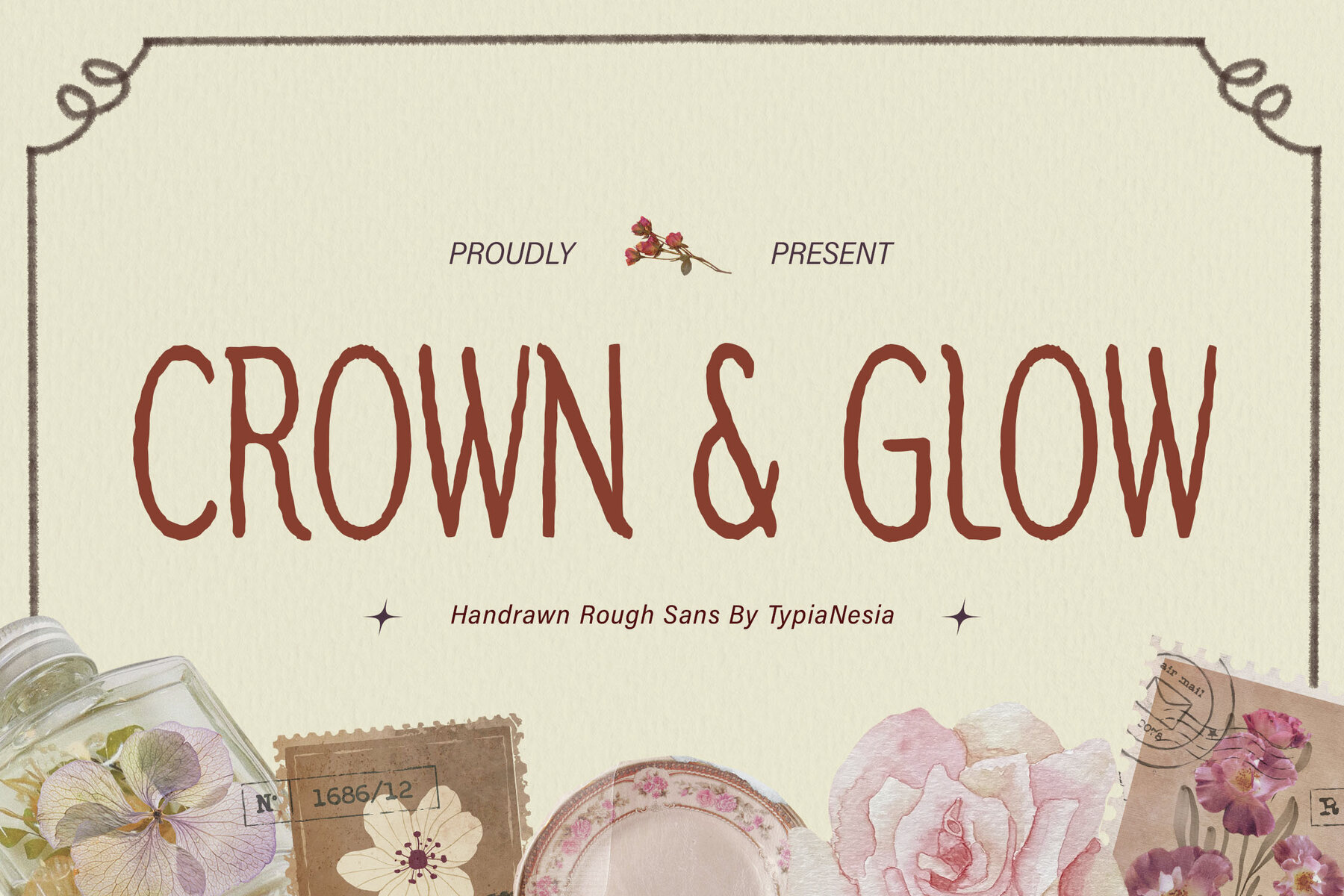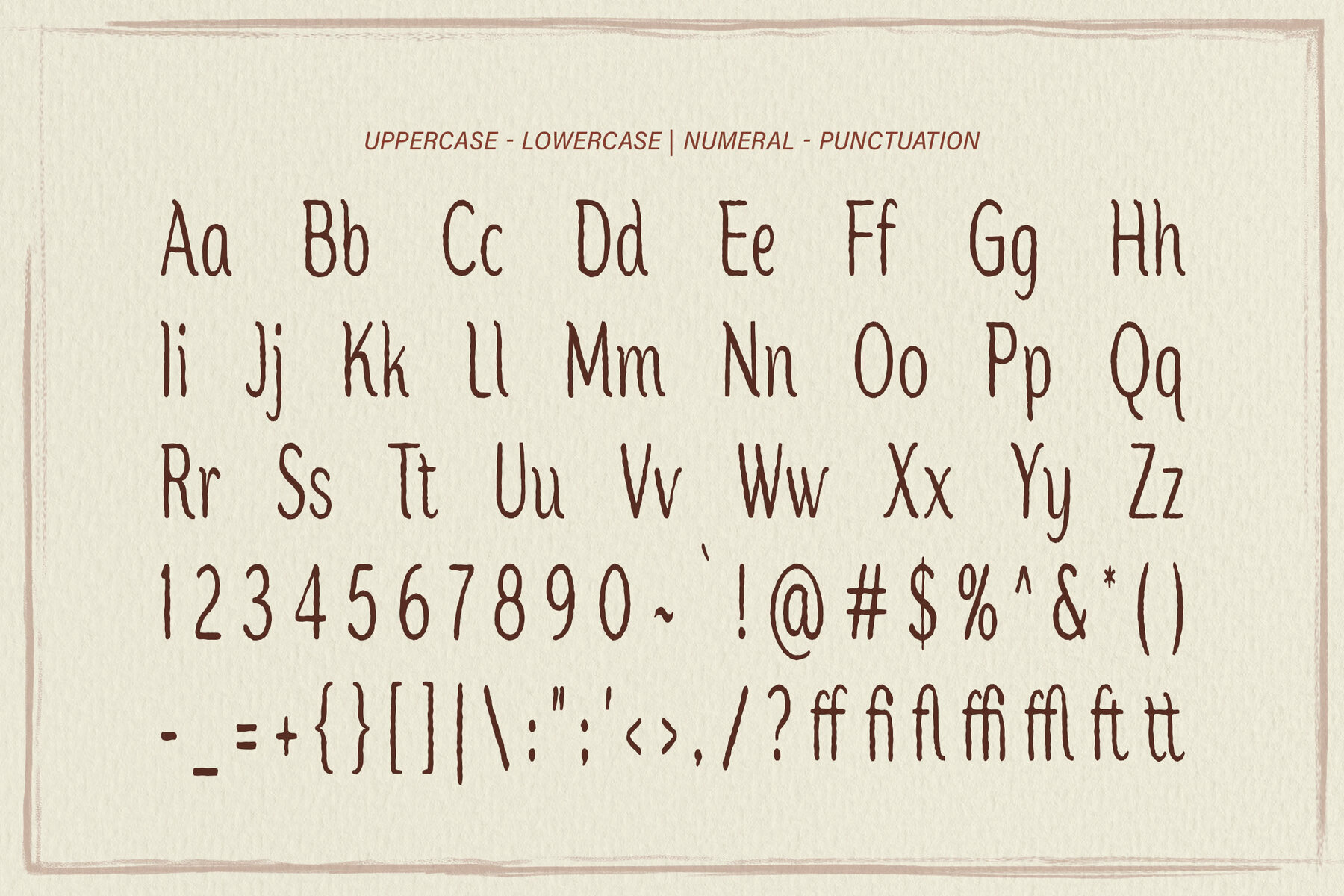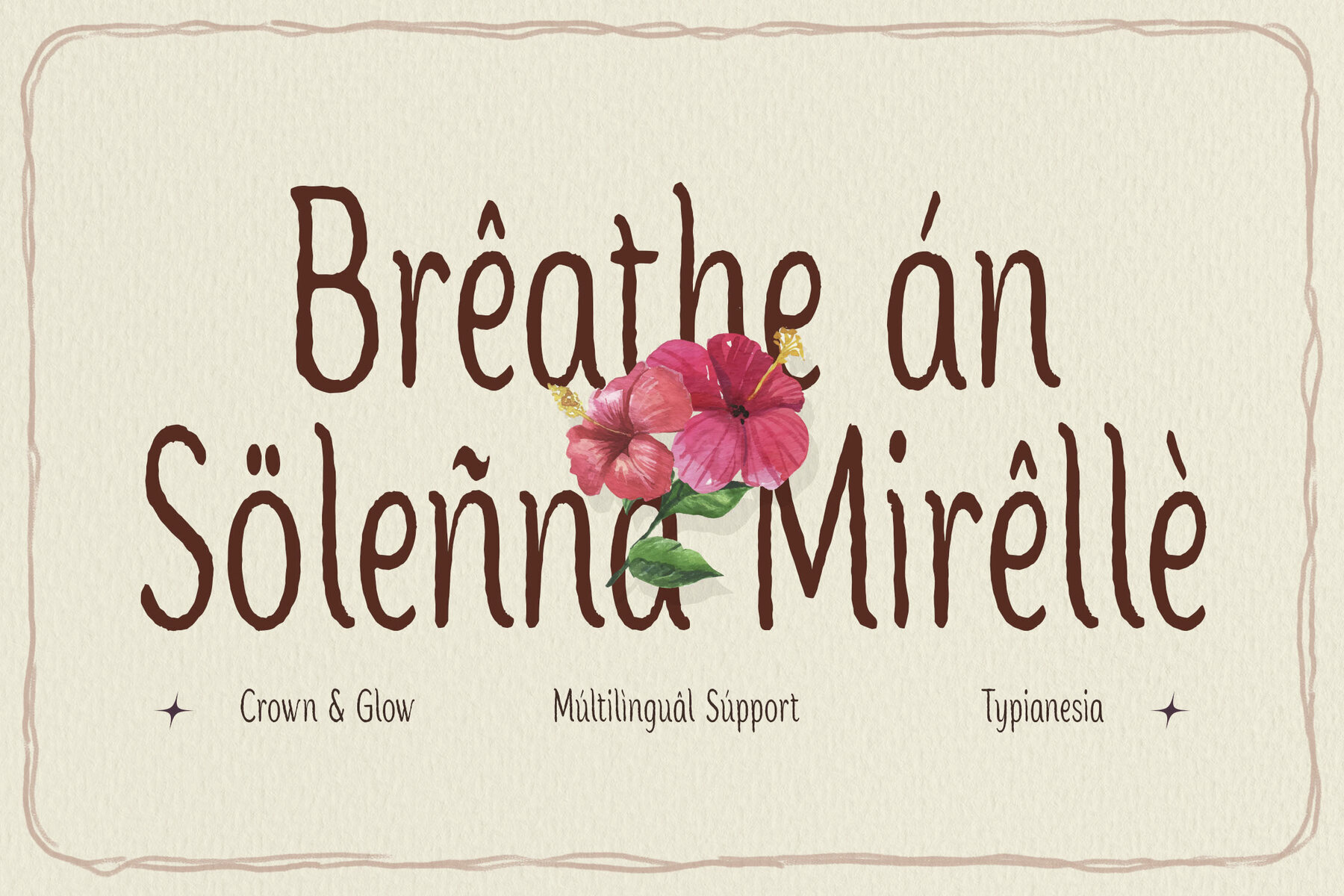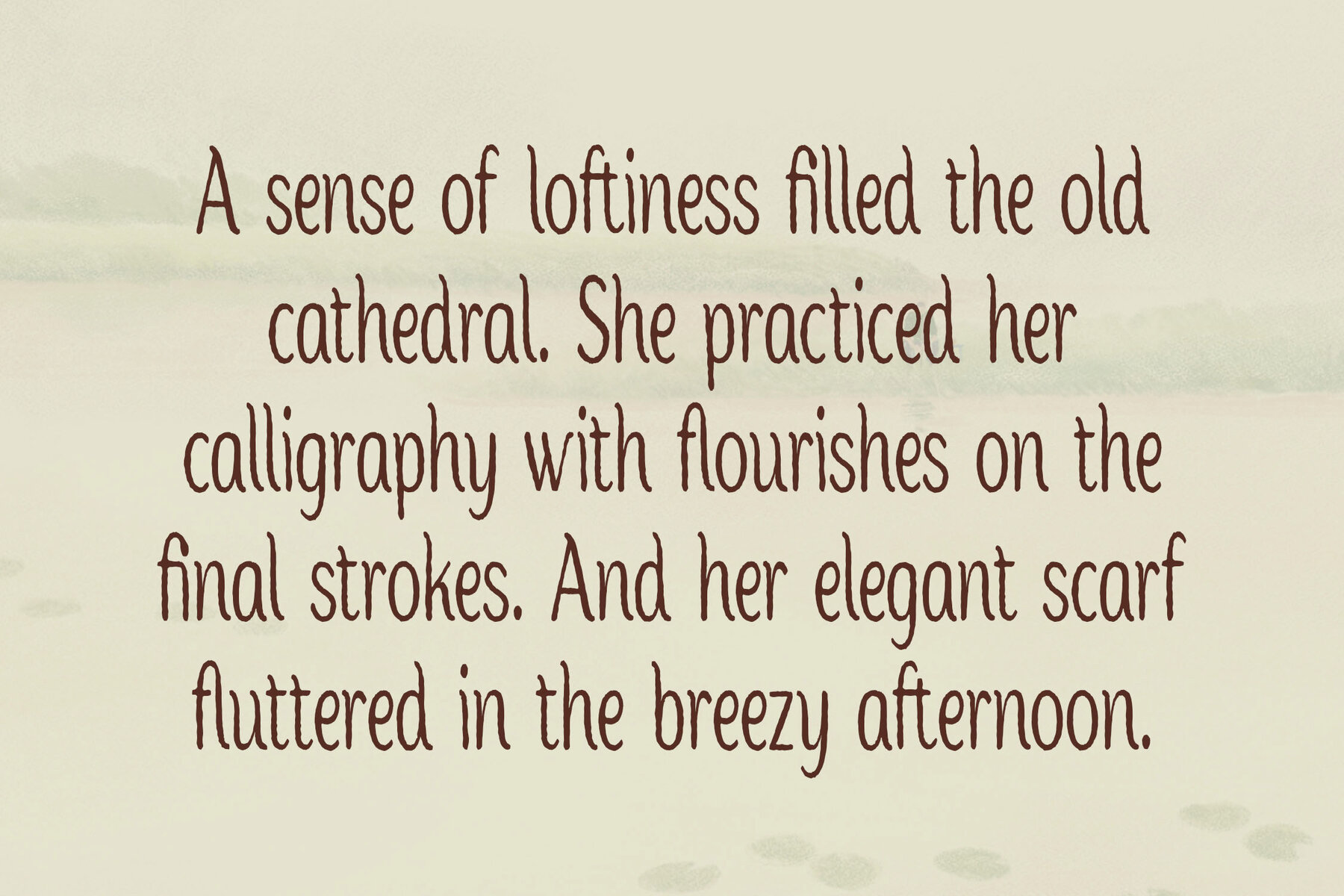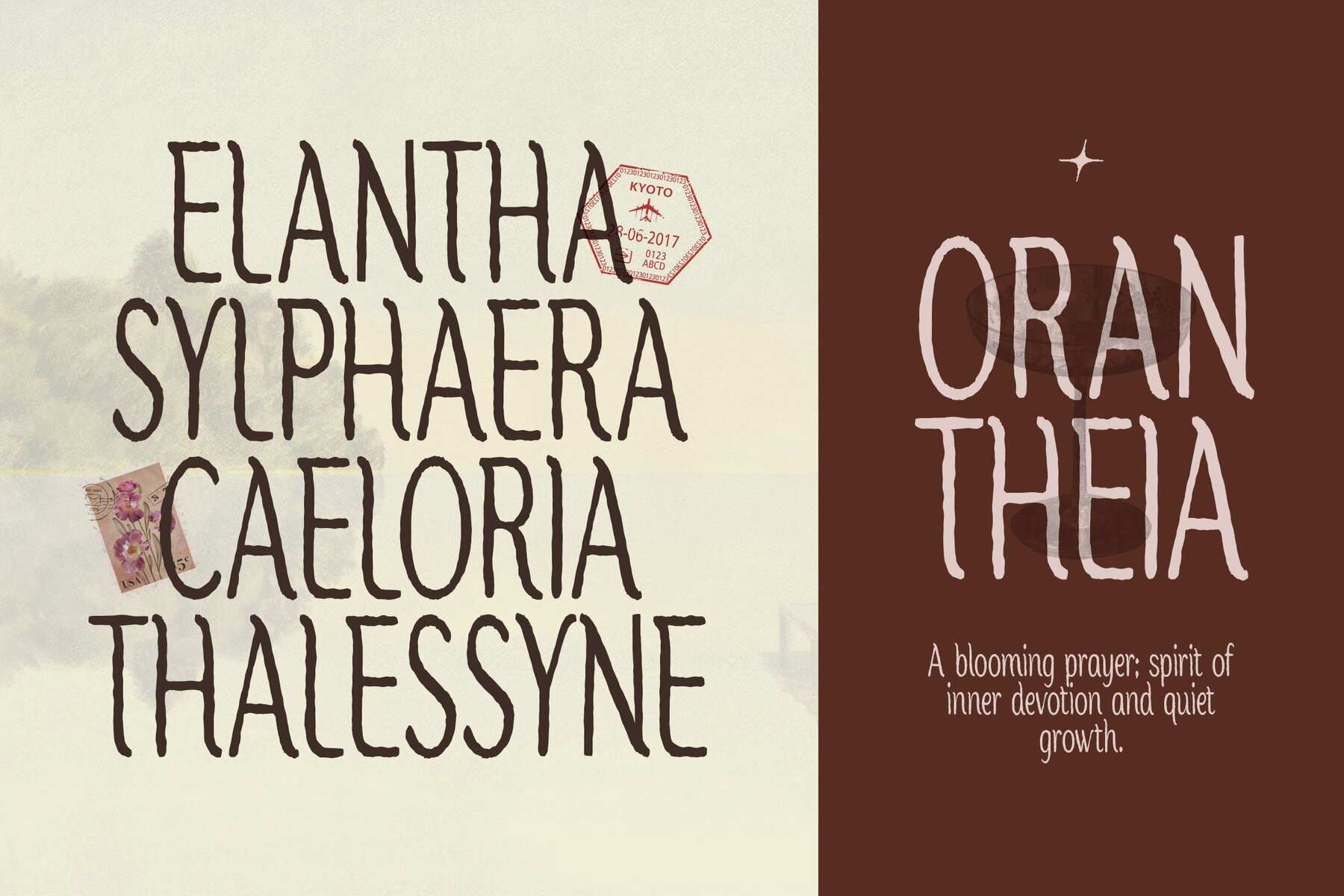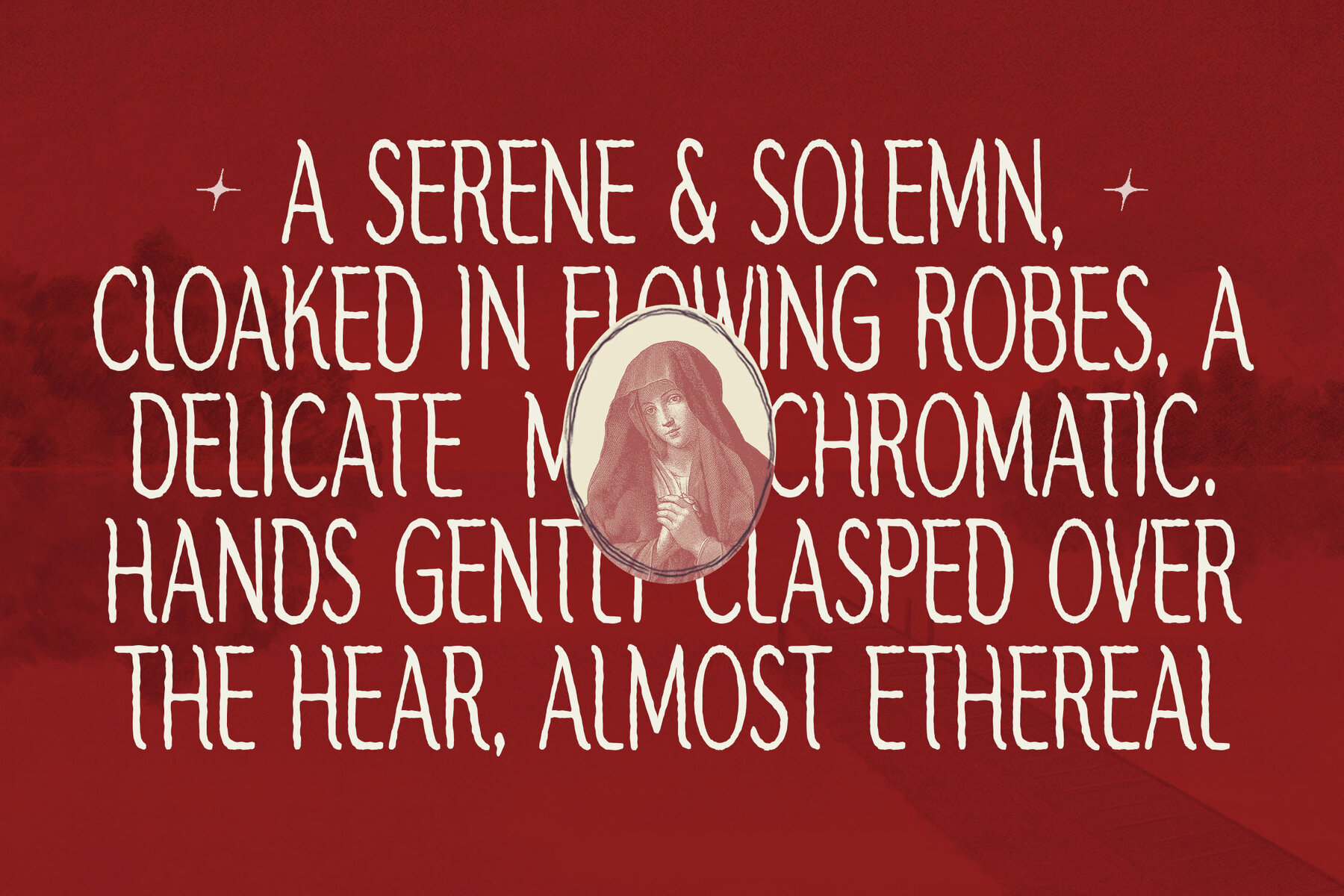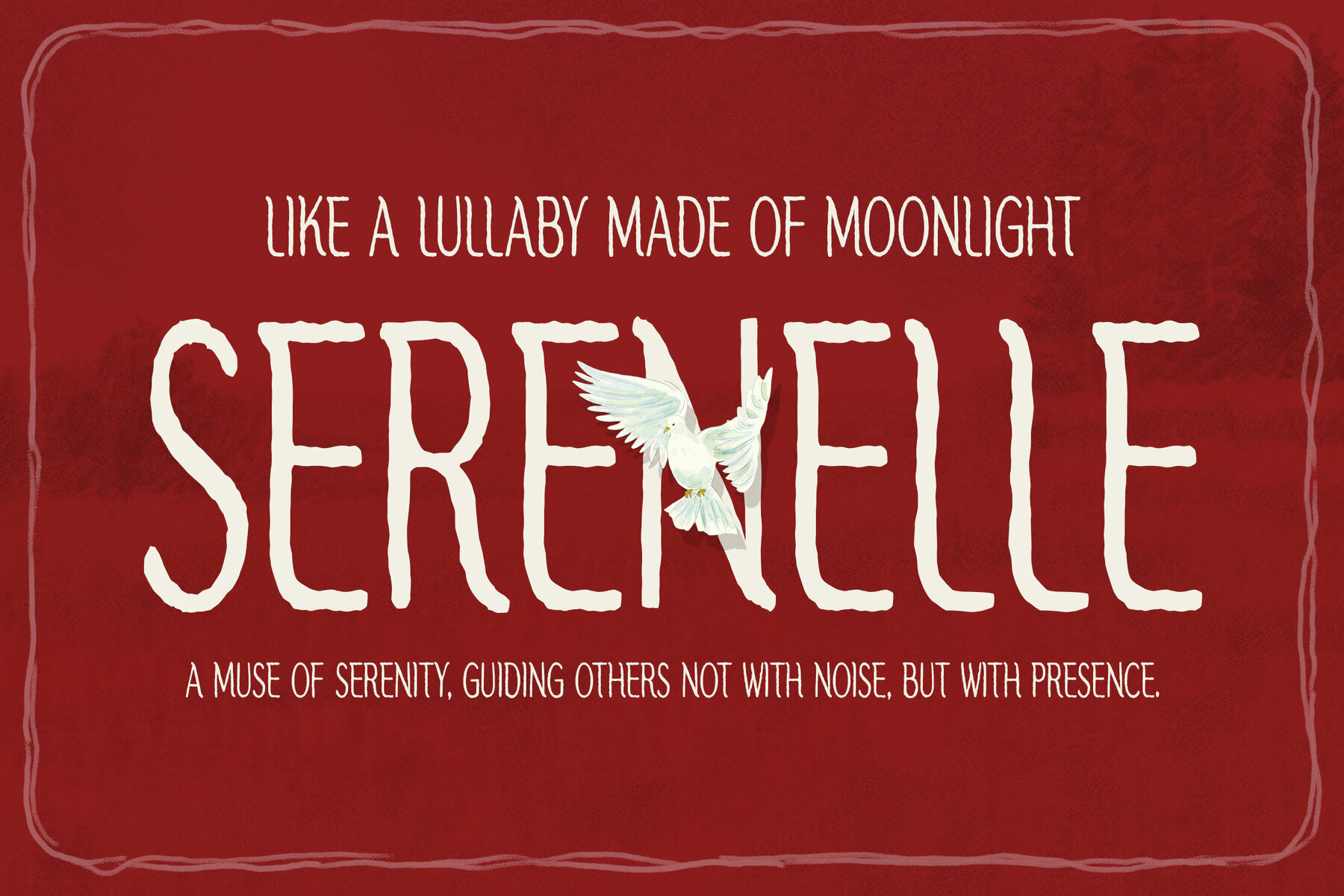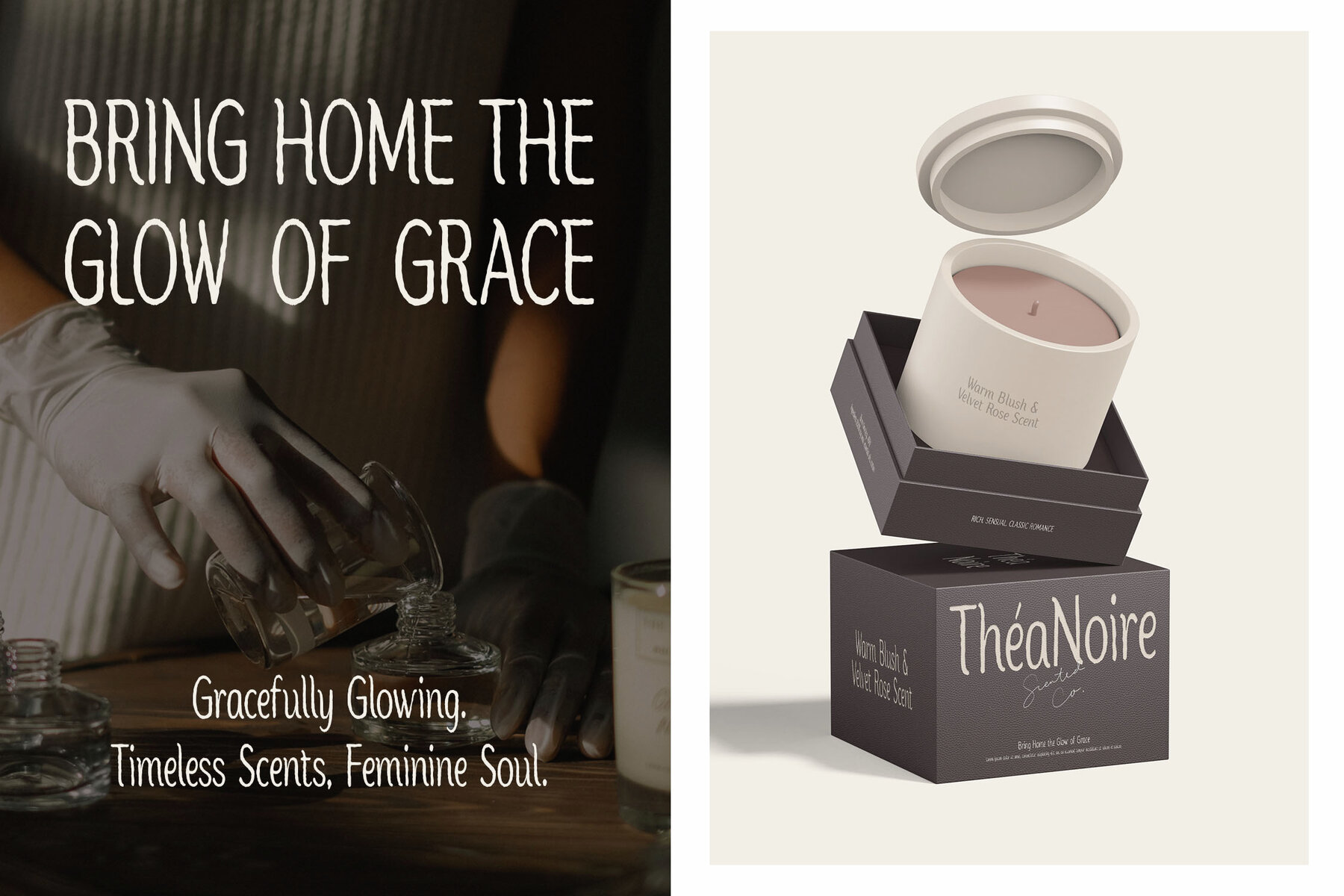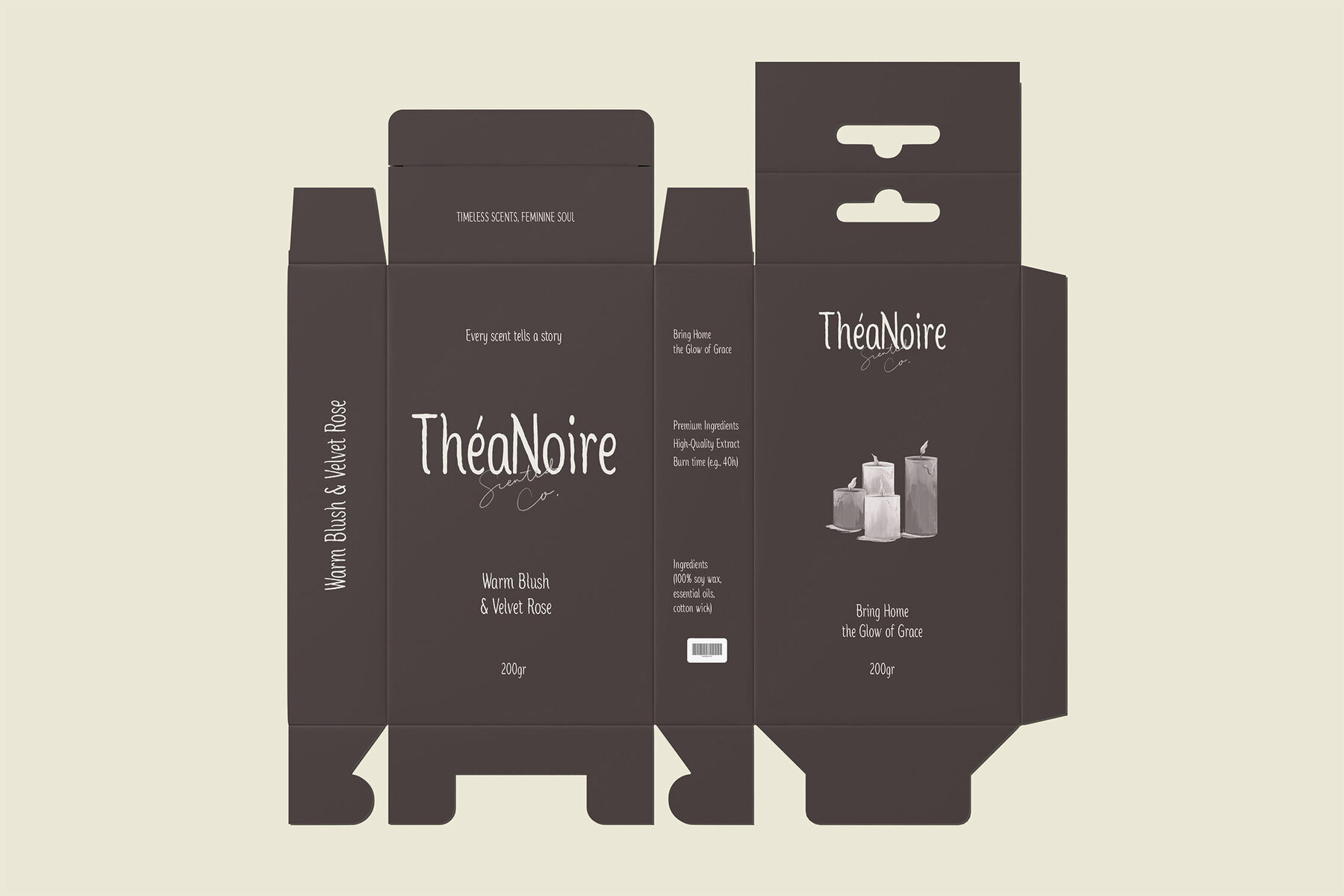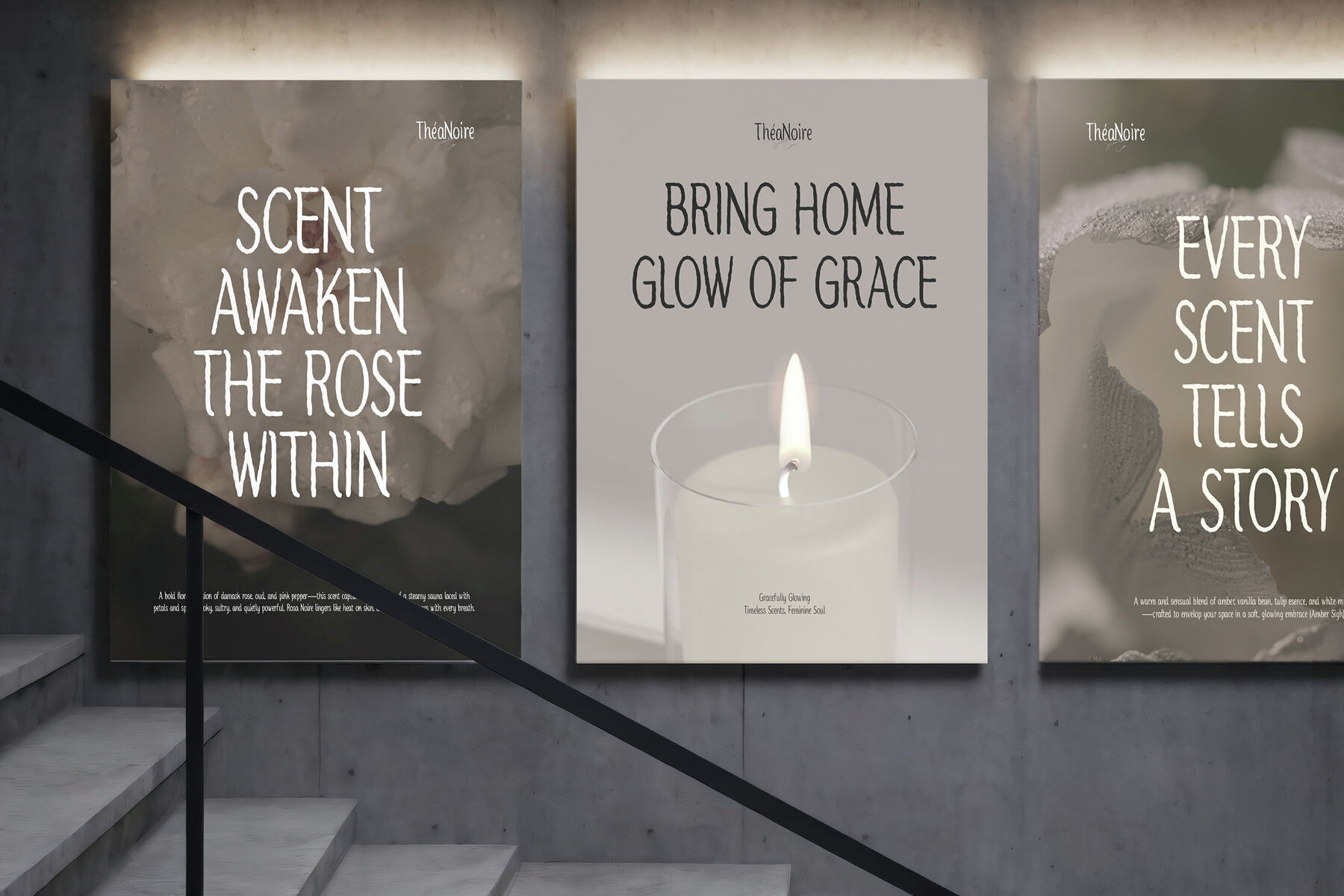
Crown and Glow Font
Crown and Glow Regular
Crown & Glow is a rough hand-drawn sans serif font that exudes rustic charm and organic appeal. With its uniquely textured appearance and feminine touch, this typeface is the perfect choice for adding character to your creative projects. Its natural and artistic style is ideal for a variety of uses, including branding, poster design, packaging, beauty products, logos, lifestyle brands, invitations, and advertisements. The distinct handwritten qualities of Crown & Glow ensure that your message is delivered with elegance and sophistication. Its versatile nature makes it an essential tool for any designer looking to infuse their work with a touch of handcrafted finesse. Bring this charming font to your next project and see how it can enhance your design's aesthetic appeal.Crown & Glow Font – Rustic Elegance for Creative Branding